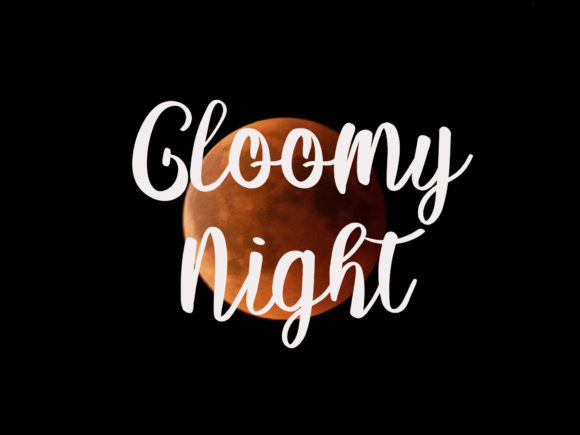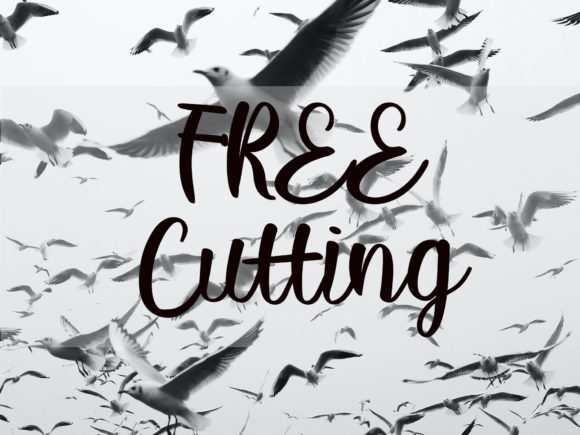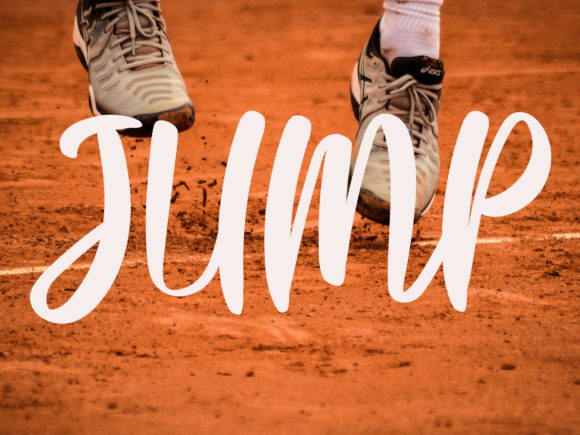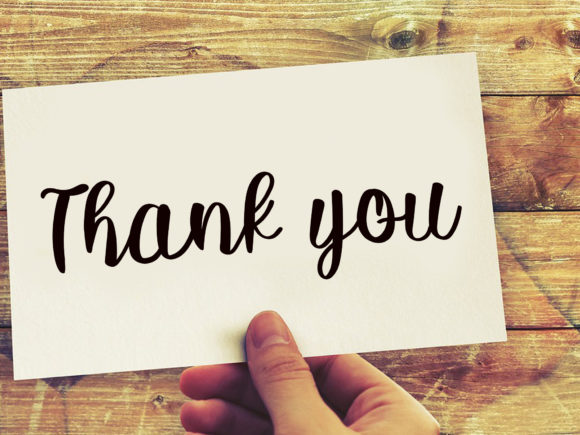
Introducing Boomerang Font: The Sweet and Delicate Handwritten Font for Romantic Designs
Are you a designer or crafter looking for a font that can add a touch of romance and personality to your designs? Look no further than Boomerang Font! This sweet and delicate handwritten font is perfect for creating wedding invitations, cards, and other designs that require a romantic and personalized touch.
What Makes Boomerang Font Special?
Boomerang Font is a unique and charming font that is sure to capture the hearts of designers and crafters alike. Its dainty and joyful design makes it ideal for a variety of projects, from wedding invitations and cards to party decorations and social media graphics. The font’s delicate and handwritten style gives it a personal and intimate feel, making it perfect for designs that require a touch of warmth and personality.
Key Features of Boomerang Font
- Sweet and delicate design: Boomerang Font features a beautiful, handwritten design that is both sweet and delicate.
- Romantic and personalized touch: The font’s charming design adds a romantic and personalized touch to any project.
- Perfect for wedding designs: Boomerang Font is ideal for creating wedding invitations, cards, and other wedding-related designs.
- Versatile and flexible: The font can be used for a variety of projects, from digital designs to print materials.
How to Use Boomerang Font in Your Designs
Using Boomerang Font in your designs is easy! Here are a few tips to get you started:
- Pair it with other fonts: Boomerang Font pairs well with other fonts, such as serif and sans-serif fonts.
- Use it for headings and titles: The font’s delicate design makes it perfect for headings and titles.
- Add it to your digital designs: Boomerang Font can be used for digital designs, such as social media graphics and blog posts.
- Use it for print materials: The font can also be used for print materials, such as wedding invitations and cards.
Benefits of Using Boomerang Font
There are many benefits to using Boomerang Font in your designs. Here are a few:
- Unique and eye-catching design: Boomerang Font features a unique and eye-catching design that is sure to stand out.
- Easy to read: The font’s clear and delicate design makes it easy to read.
- Time-saving: Boomerang Font can save you time and effort in your design process.
Who Can Benefit from Using Boomerang Font?
Boomerang Font is perfect for a variety of designers and crafters, including:
- Wedding designers: Boomerang Font is ideal for wedding designers who want to create romantic and personalized wedding invitations and cards.
- Graphic designers: The font is perfect for graphic designers who want to add a touch of personality to their designs.
- Crafters: Boomerang Font is also great for crafters who want to create handmade cards and invitations.
- Stationery designers: The font is perfect for stationery designers who want to create beautiful and unique stationery sets.
In conclusion, Boomerang Font is a sweet and delicate handwritten font that is perfect for designers and crafters who want to add a touch of romance and personality to their designs. Its unique and eye-catching design makes it ideal for a variety of projects, from wedding invitations and cards to party decorations and social media graphics. With its ease of use and versatility, Boomerang Font is a must-have font for any designer or crafter looking to create beautiful and unique designs.